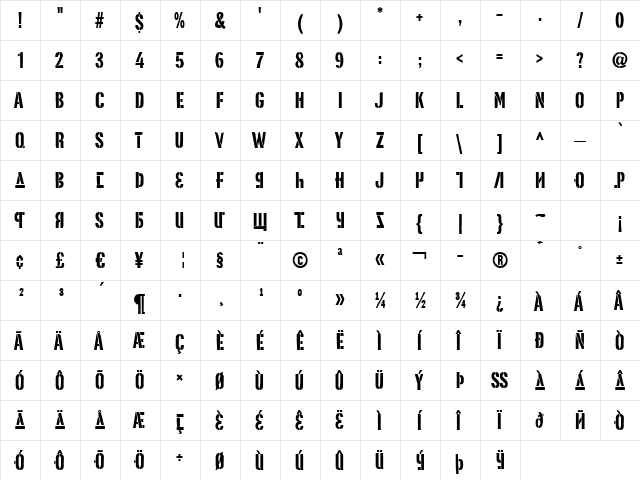
GazzStencil Regular
Design Context for GazzStencil Typeface
GazzStencil has the rough pragmatism of spray-painted stencil signage, adding a raw, street-level authenticity to designs.
Ideal for industrial branding, streetwear, military-adjacent aesthetics, and urban signage projects.
Pro Tip: Pair GazzStencil with raw, utilitarian design elements — exposed concrete textures, flat colour, and minimal ornamentation suit it well.